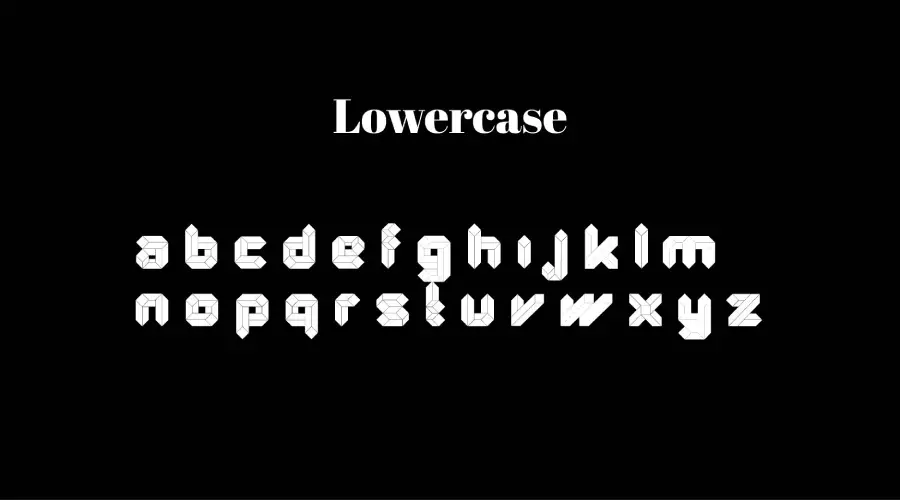
Quad Font is a display type applicable for any type of graphic design – web, print, motion graphics, etc. and perfect for t-shirts and other items like logos, and pictograms. With Quad, typography comes naturally. This font is designed and shared by FontFabric Foundry.
Quad Black Heavy, Quad Light Light, Quad Ultra Heavy.
For its fancy look, you can easily use this font in designing or branding. You can design a logo, brochure, banner, poster, magazine, greeting card, advertising card, book cover, and many more.